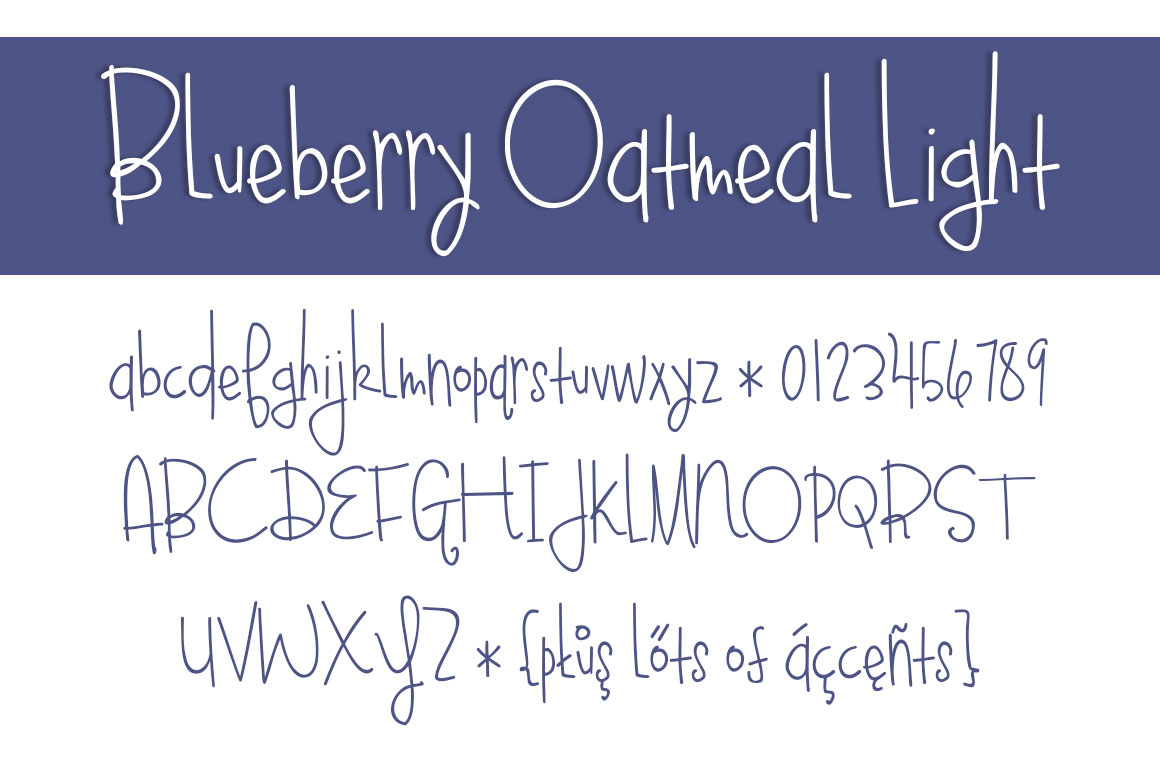
Introducing Blueberry Oatmeal Light Font: A Whimsical Handwritten Typeface
Are you tired of using the same old fonts in your designs? Look no further! Blueberry Oatmeal is a fun and playful handwritten typeface that’s sure to add a touch of personality to your projects. With its unique blend of varying letter heights and sizes, this font is perfect for designers and crafters looking to add a dash of whimsy to their work.
A Unique and Eye-Catching Font
Blueberry Oatmeal Light Font is a one-of-a-kind typeface that’s sure to grab attention. Its handwritten style gives it a friendly and approachable feel, making it perfect for use in a variety of design projects, from invitations and greeting cards to blog posts and social media graphics. The font’s varying letter heights and sizes add a touch of playfulness, giving your text a lively and energetic feel.
Key Features of Blueberry Oatmeal Light Font
- Handwritten style: Blueberry Oatmeal Light Font has a warm and friendly handwritten style that’s perfect for adding a personal touch to your designs.
- Varying letter heights and sizes: The font’s unique blend of letter heights and sizes gives it a playful and whimsical feel.
- Lightweight and easy to read: Despite its playful style, Blueberry Oatmeal Light Font is surprisingly easy to read, making it perfect for use in body text.
- Multilingual support: This font supports multiple languages, making it a great choice for designers working on international projects.
Blueberry Oatmeal Light Font is a versatile typeface that’s perfect for use in a wide range of design projects, including:
- Invitations and greeting cards: Add a touch of whimsy to your invitations and greeting cards with this playful font.
- Blog posts and social media graphics: Use Blueberry Oatmeal Light Font to add a personal touch to your blog posts and social media graphics.
- Crafting and DIY projects: This font is perfect for use in crafting and DIY projects, such as scrapbooking, journaling, and more.
- Branding and packaging: Use Blueberry Oatmeal Light Font to add a touch of personality to your brand’s packaging and marketing materials.
Tips for Using Blueberry Oatmeal Light Font
Here are a few tips for getting the most out of Blueberry Oatmeal Light Font:
- Use it sparingly: While Blueberry Oatmeal Light Font is playful and fun, it can be overwhelming if used too much. Use it sparingly to add a touch of whimsy to your designs.
- Pair it with a neutral font: Pair Blueberry Oatmeal Light Font with a neutral font, such as Arial or Helvetica, to create visual interest and add contrast to your designs.
- Experiment with colors: Blueberry Oatmeal Light Font looks great in a variety of colors, so don’t be afraid to experiment and find the perfect hue for your design.
Blueberry Oatmeal Light Font is a unique and eye-catching typeface that’s perfect for designers and crafters looking to add a touch of whimsy to their work. With its handwritten style, varying letter heights and sizes, and lightweight design, this font is sure to become a favorite in your design arsenal. So why wait? Download Blueberry Oatmeal Light Font today and start adding a touch of personality to your designs!